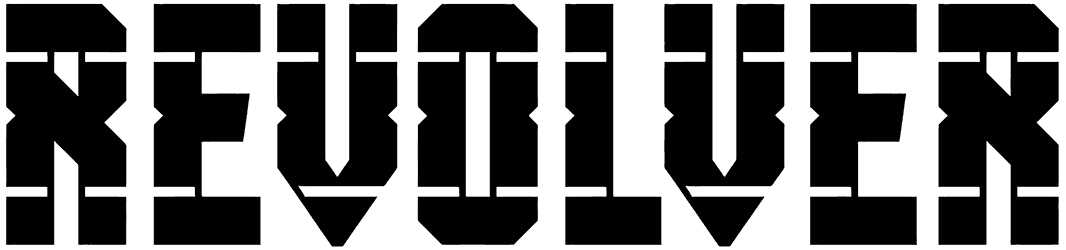
SB Revolver Font
Designed bySelfBuild Type Foundry
Are you seeking a unique and eye-catching visual for your project? This geometric font will be a cool item. The SB Revolver font’s characters are bold and powerful, and you can count on them to attract lots of viewers. Lowercase letters are unavailable, yet this robot font can add a distinct mood to your creative designs, such as a futuristic game scene.
SB Revolver is a poster sized display font inspired by papercrafts and wood type. This font contains 121 glyphs.